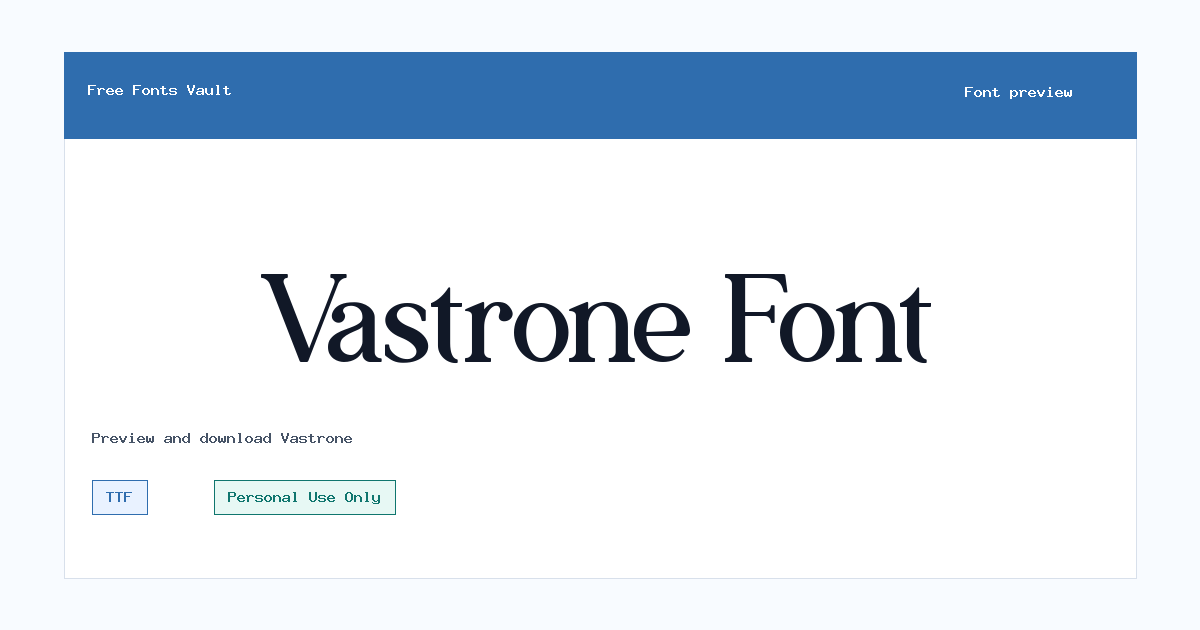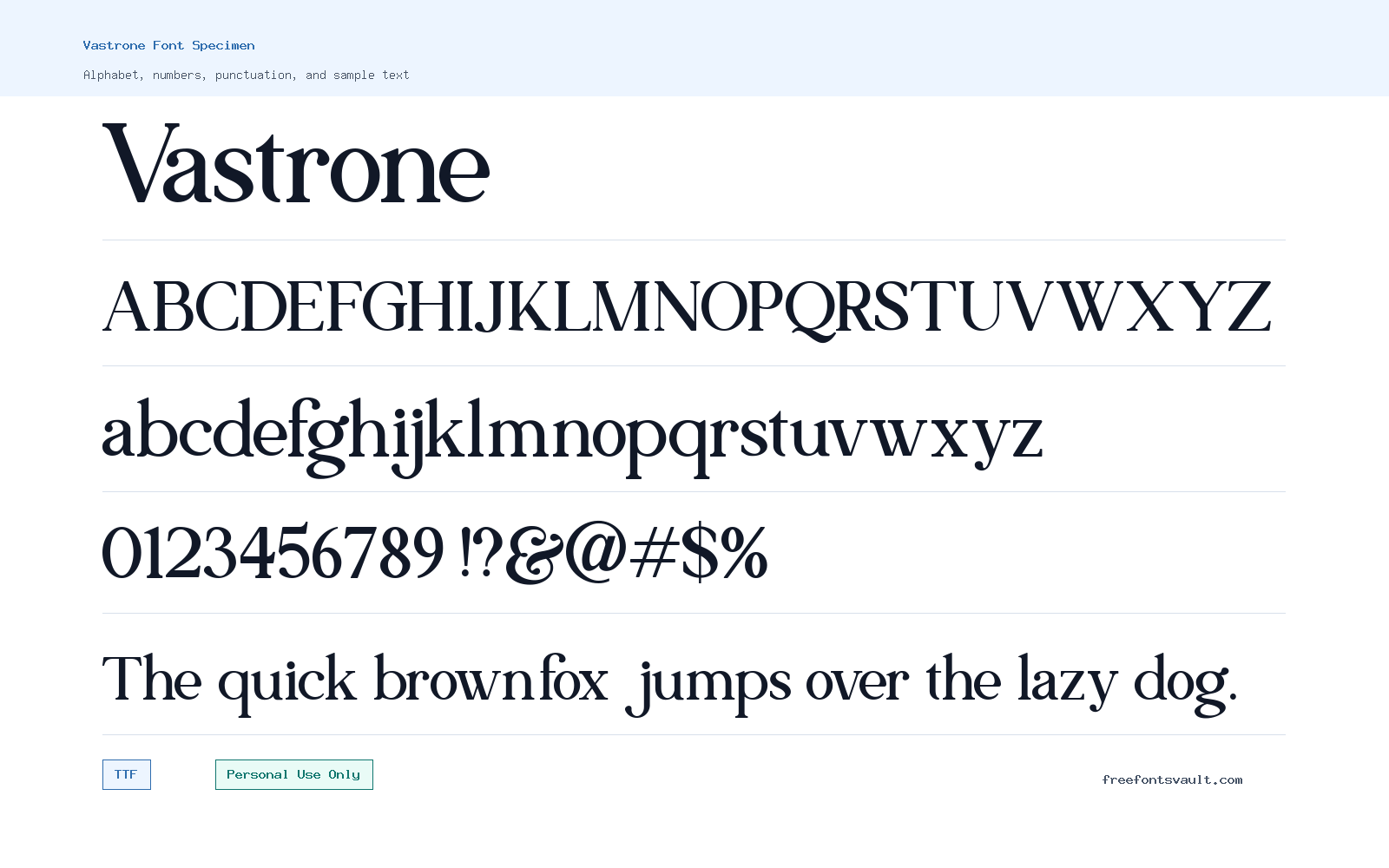
Vastrone
- Designer Bakhrudin Ja'far
- Foundry Jafar07
Vastrone font.
Vastrone is a serif font with a display-friendly feel, suited to visitors who want a more distinctive look for headings, short titles, and decorative text.
About Vastrone Font
Vastrone works best when you use it where the letter shapes can be seen clearly. It is not the kind of font to judge only from a tiny sample, so try it in the preview with the exact words you plan to use. Short names, poster lines, social graphics, invitation headings, and logo-style mockups are good places to test its character without forcing it into long reading text.
- Serif style suited to display use, titles, and short decorative text
- Posters, invitations, cover text, and social media title graphics
- Brand mockups, name treatments, and short editorial headings
The designer is listed as Bakhrudin Ja'far, with Jafar07 listed as the foundry.
What is Vastrone best used for?
It is best tested for headings, display text, posters, invitations, social graphics, and short logo-style text where the serif details have room to show.
Can I use Vastrone for body text?
You can test it, but it is safer to use Vastrone for short text. For long paragraphs, pair it with a simpler, highly readable text font.
Who designed Vastrone?
The font details list Bakhrudin Ja'far as the designer and Jafar07 as the foundry.